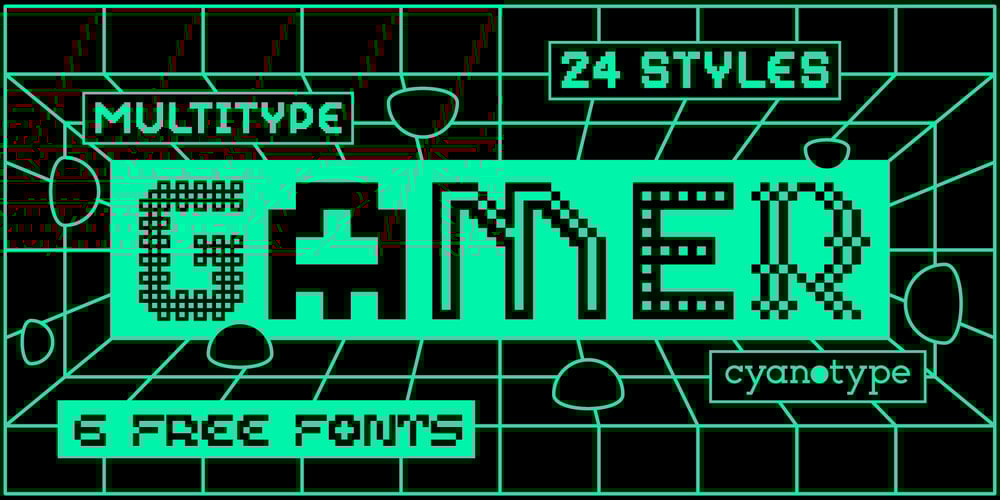
MultiType Gamer Font Family was designed by Damián Guerrero and published by Cyanotype. MultiType Gamer contains 24 styles and family package options. MultiType Gamer, an all caps typeface focused in display purposes. 24 styles with retro gaming vibes.This is the second release of an expanding multiverse of mixable fonts. The whole family of typefaces has been designed to work at big sizes and display purposes such as branding, headlines, thumbnails, posters and animations. You can swap between the three additional alternate sets through all the styles to add diversity to your composition, even in Cyrillic. MultiType Gamer is inspired by fonts from video games, arcades and variable fonts. Have fun mixing all the styles in your projects.